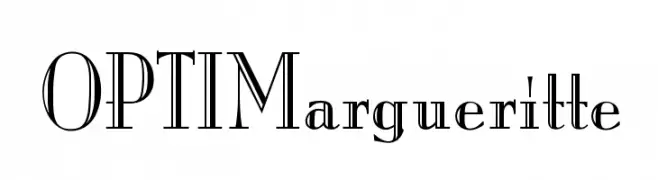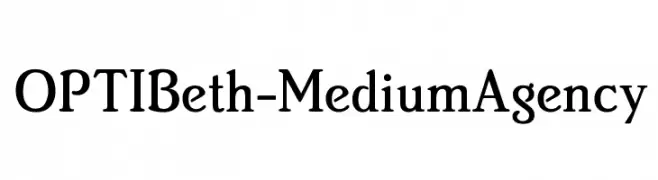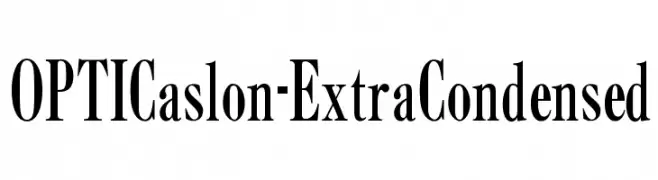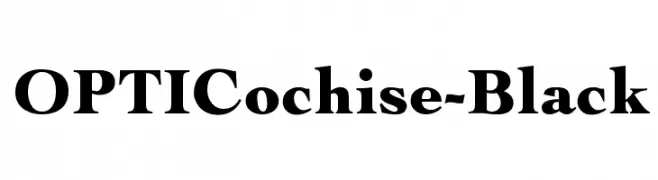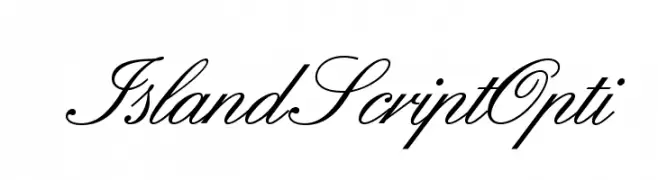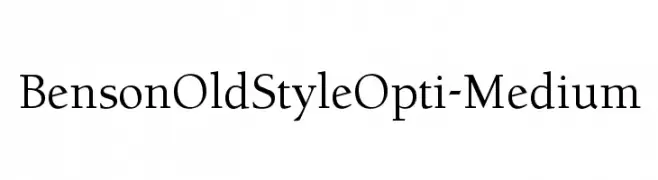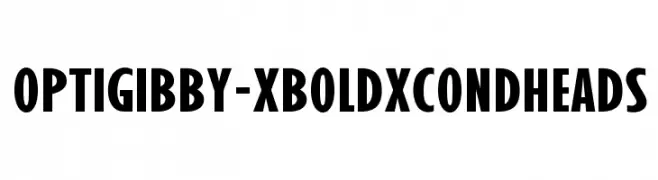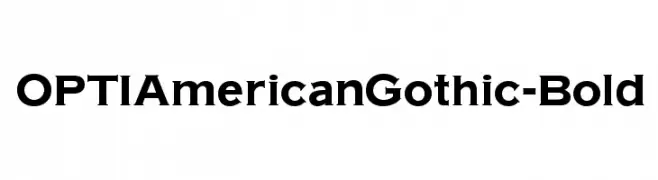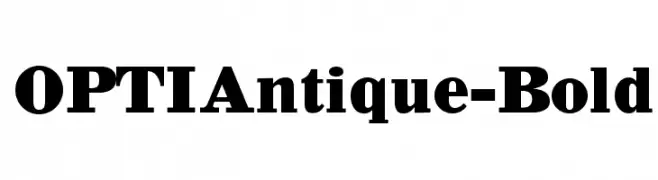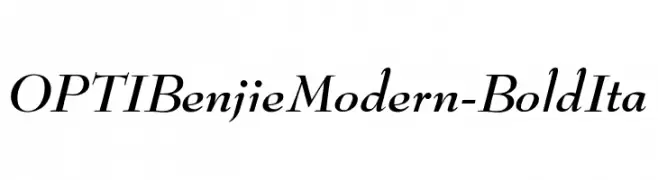
An elegant, high-contrast font with decorative elements and artistic flair.
A classic serif font with elegant strokes and balanced proportions.
A vintage serif font with an antique, textured style.
A bold, condensed font with tall, narrow letters and minimal spacing.
A decorative and vintage-style font with ornate details.
A classic serif typeface with an extra condensed width and medium contrast.
A bold serif font with strong, thick strokes and sharp serifs.
An elegant and flowing script font with a classic, sophisticated style.
A classic serif typeface with moderate contrast and elegant serifs.
A bold, condensed font with uniform strokes for strong visual impact.
A bold, modern font with strong lines and a professional appearance.
A classic serif font with elegant curves and balanced strokes, ideal for formal use.
A bold, classic serif font with strong strokes and a modern touch.
A tall, elegant font with high contrast and elongated uppercase letters.
A classic serif font with medium contrast and elegant bracketed serifs.
A bold, italic serif font with a modern and elegant style.
A bold, serif font with strong strokes and sharp serifs, perfect for impactful designs.
A modern italic font with clean lines and a sleek, professional appearance.
A bold, wide serif font with strong, thick strokes and classic elegance.
A sophisticated serif font with bold strokes and elegant curves.
A bold, classic serif font with strong, authoritative presence.
A bold serif font with strong, slightly condensed letterforms and a classic yet modern appeal.
A bold, serif font with strong vertical emphasis and sharp serifs.
A bold, cursive font with flowing, connected letterforms and decorative flair.
An ornate, decorative font with intricate swirls and embellishments.
A classic serif font with elegant strokes and refined serifs.
An elegant script font with fluid, cursive strokes and a sophisticated appearance.